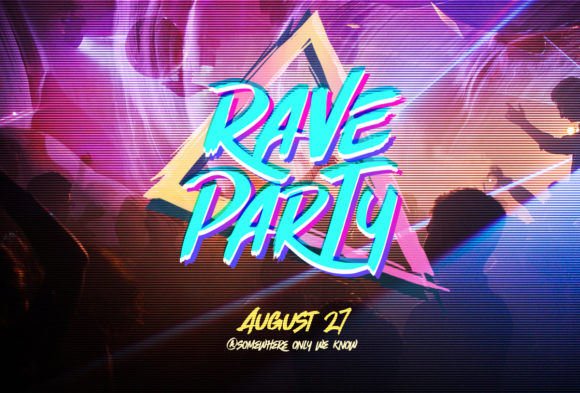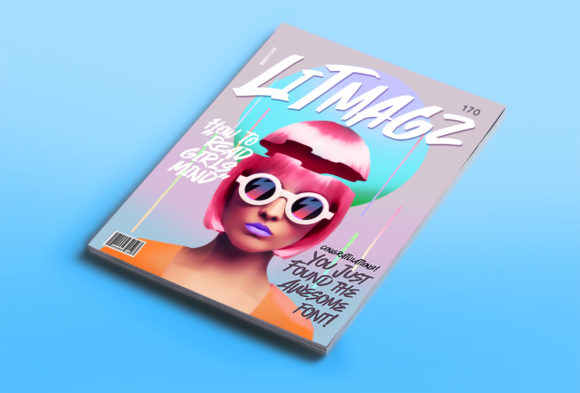
Quickzag Font
db-ku.com - Script & Handwritten -- The Quickzag is a hand drawn marker typeface with an energetic set of marker fonts with fast swipes yet a gentle attitude.